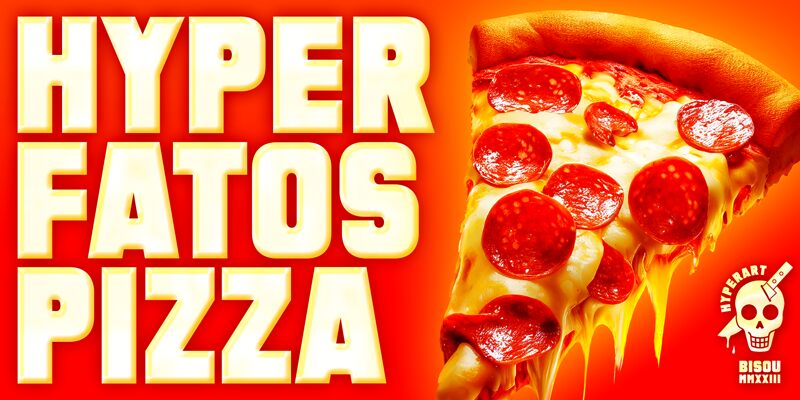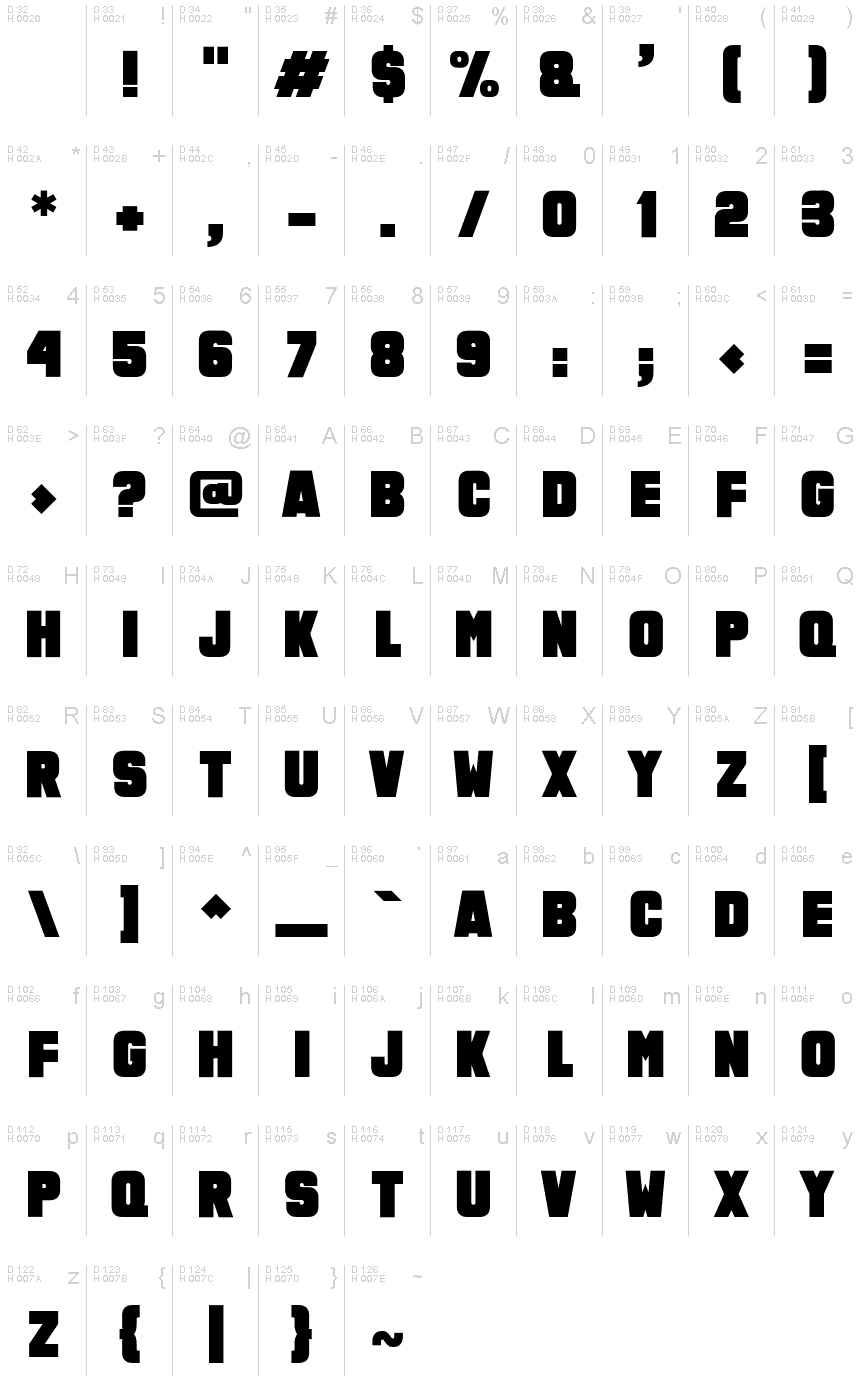
HyperFatos
Hyper Fatos, designed by Bisou, is a sans serif font that commands attention with its extra-bold weight. Its robust and impactful character makes a striking statement in any creative endeavor. The typeface's clean lines and modern simplicity give it an undeniable aesthetic appeal, suitable for a wide range of applications from bold headlines to captivating advertising campaigns.
With its contemporary feel, Hyper Fatos is perfectly poised to add a touch of sophistication and strength to branding projects, editorial designs, or any platform where clarity and emphasis are key. Its versatility and visually engaging style ensure that this font not only captures the essence of modern design but also maintains legibility even at larger scales.
Embrace the dynamic presence of Hyper Fatos in your next project to convey your message with power and style.